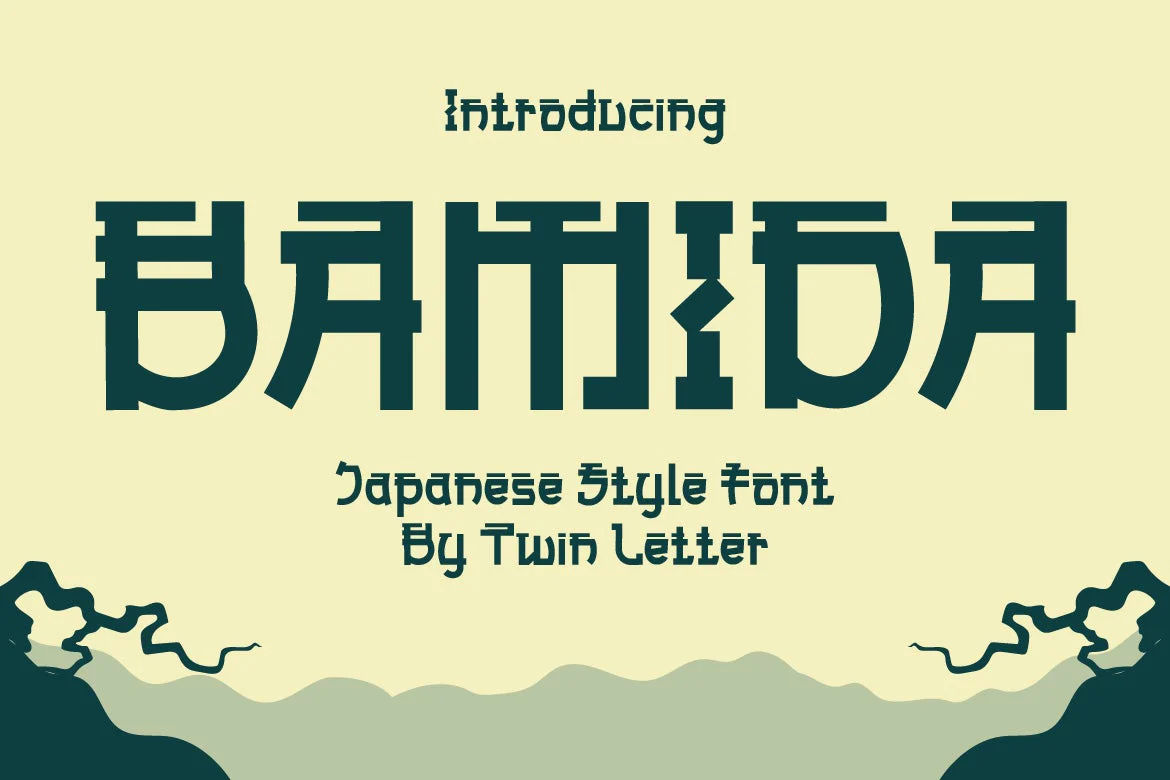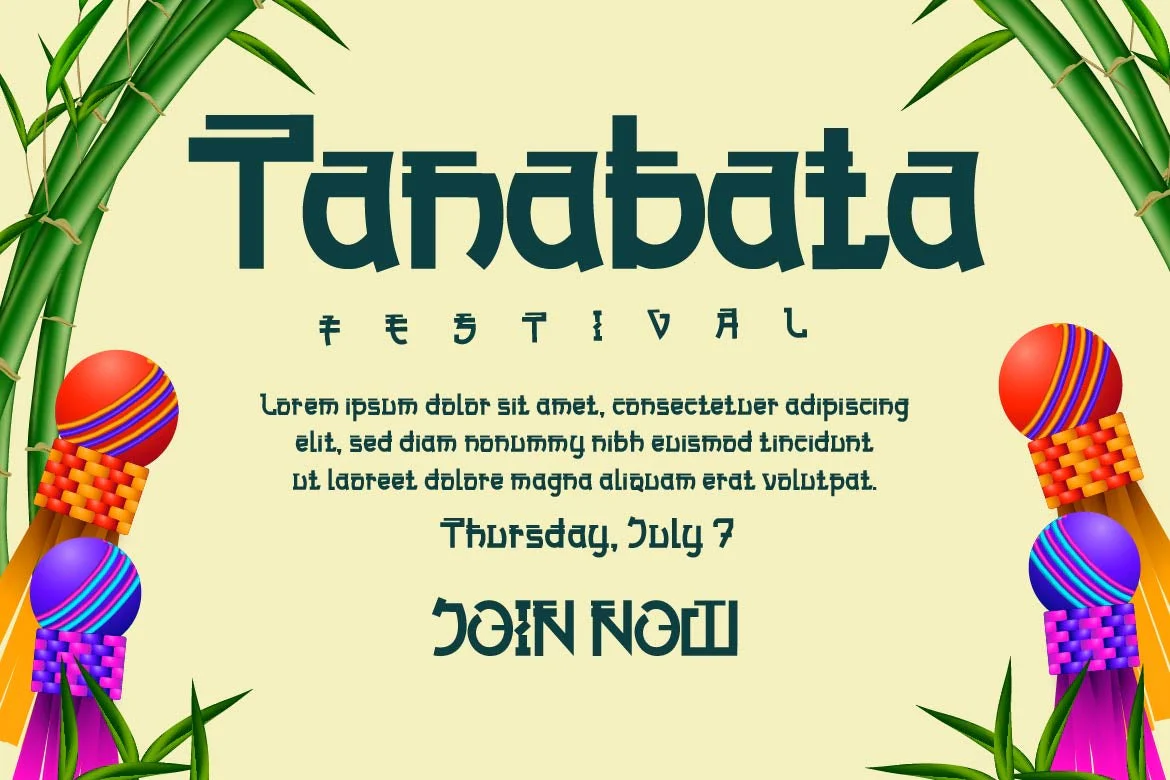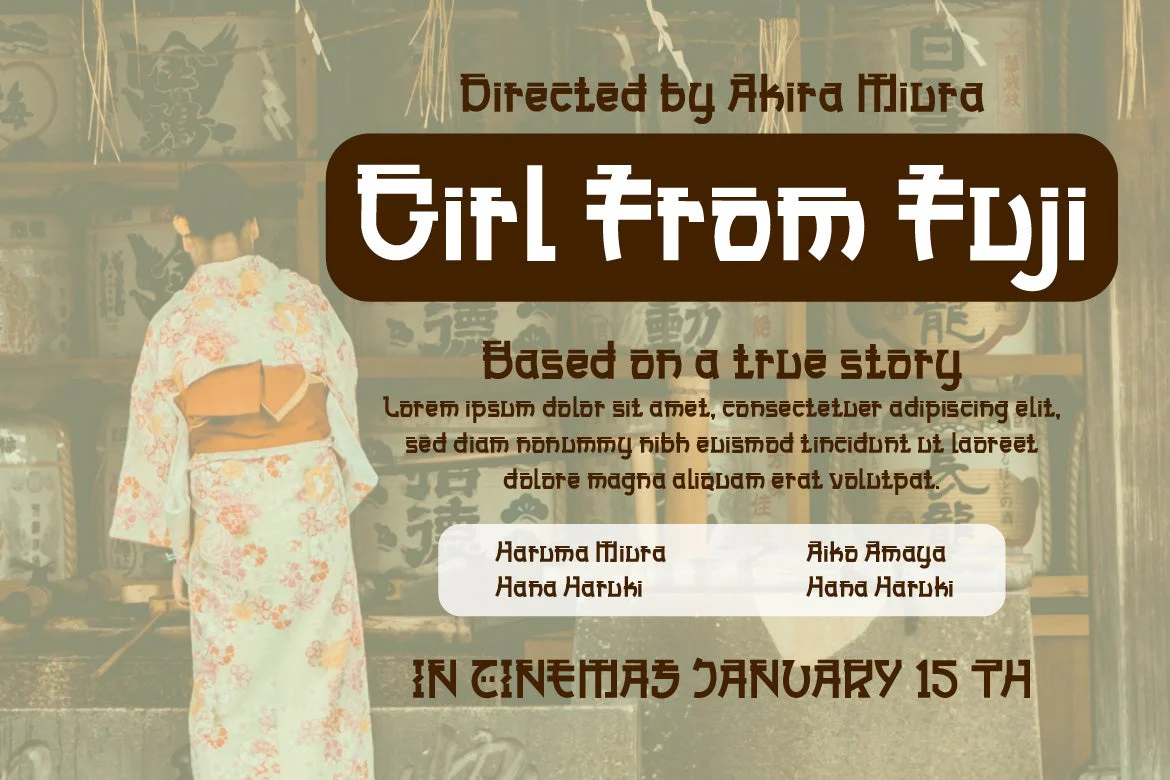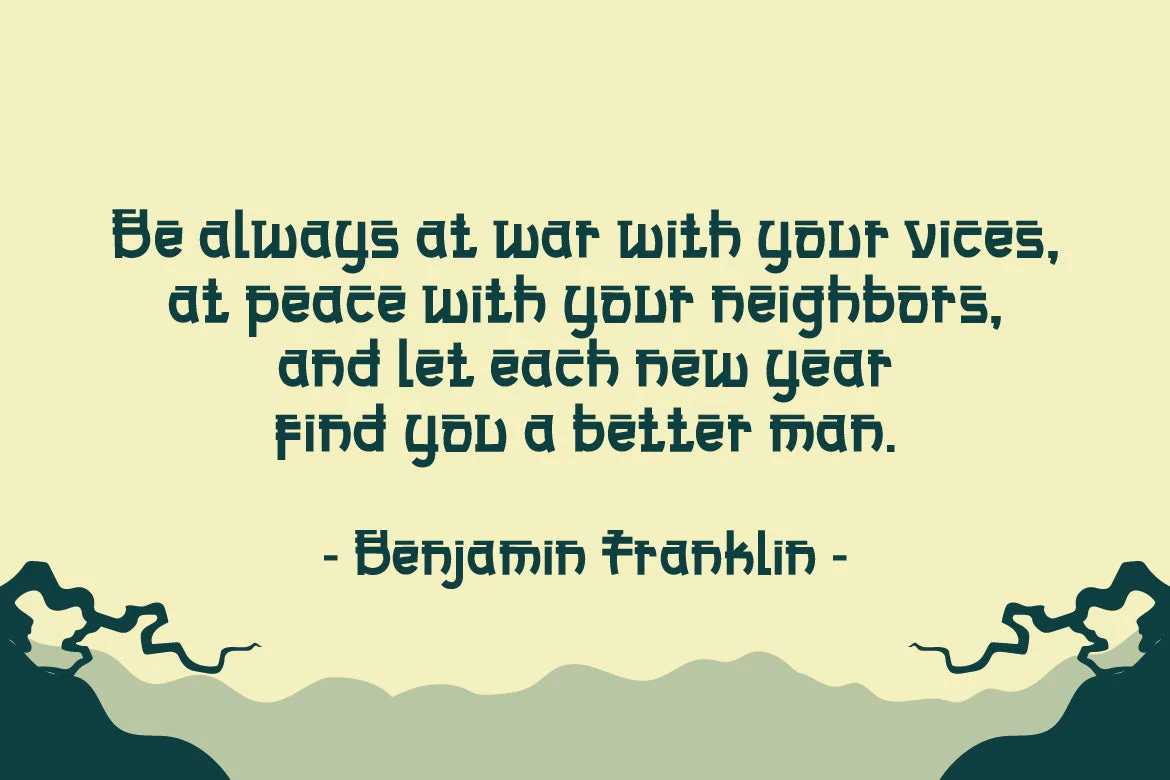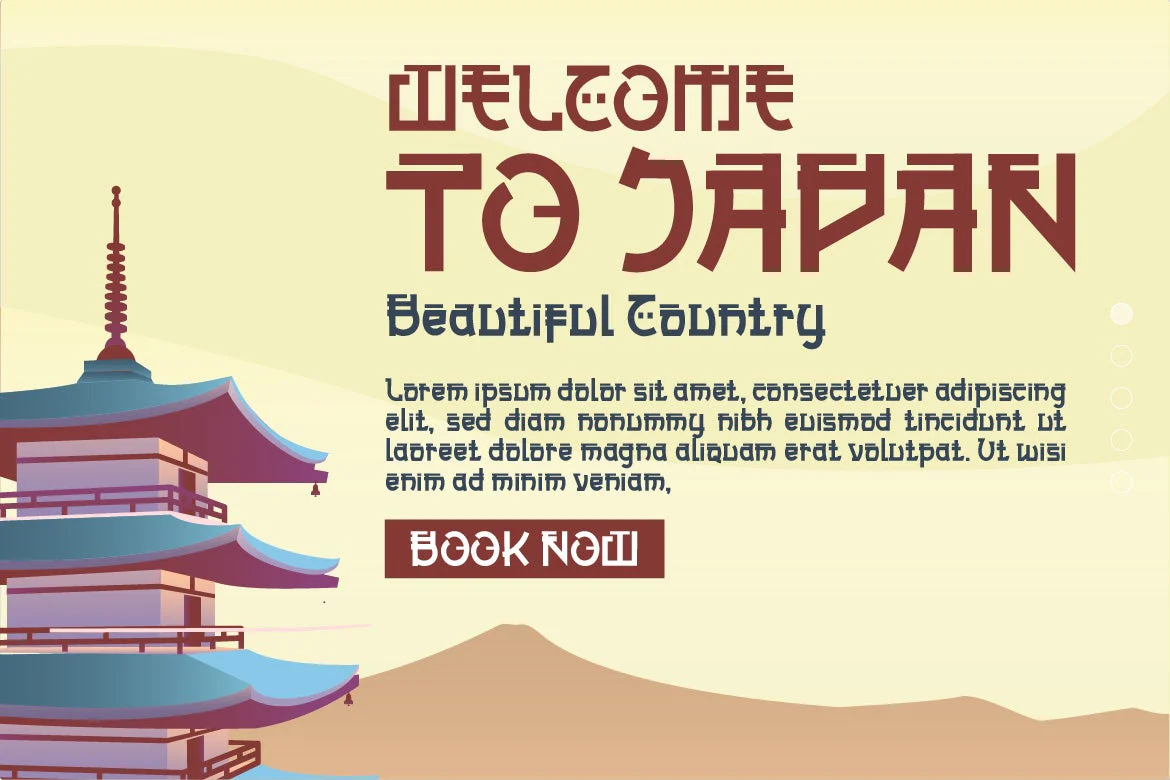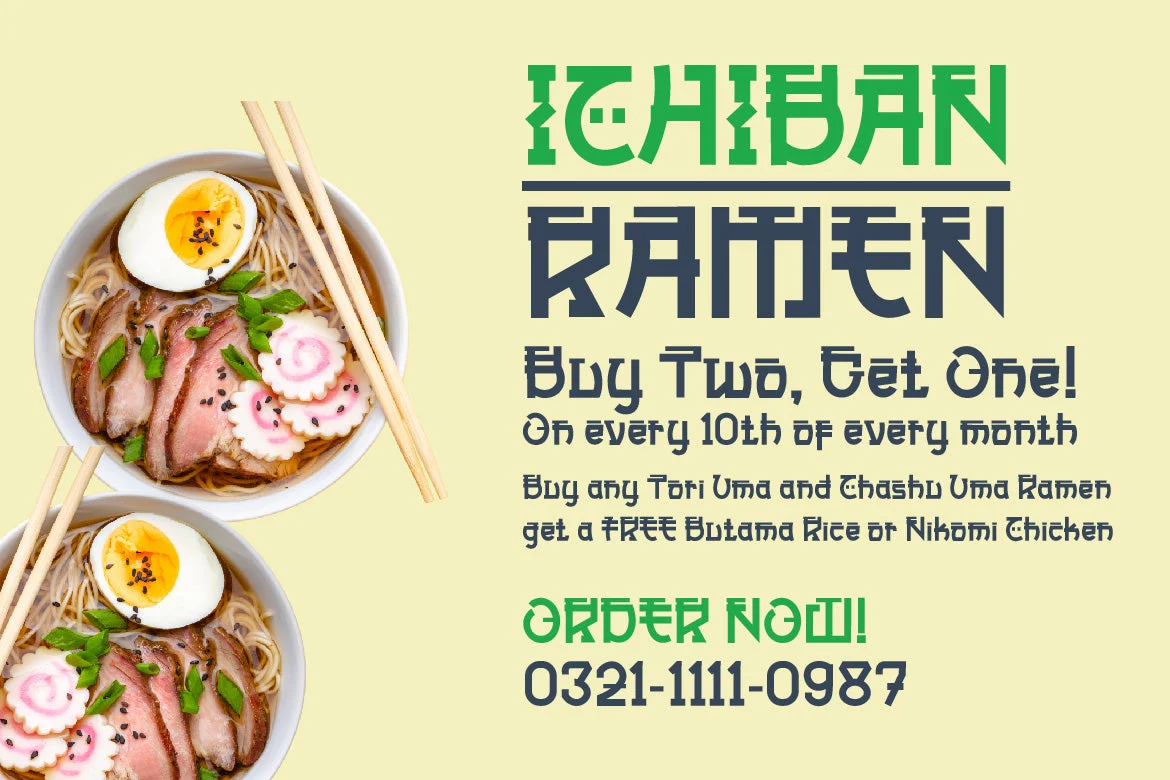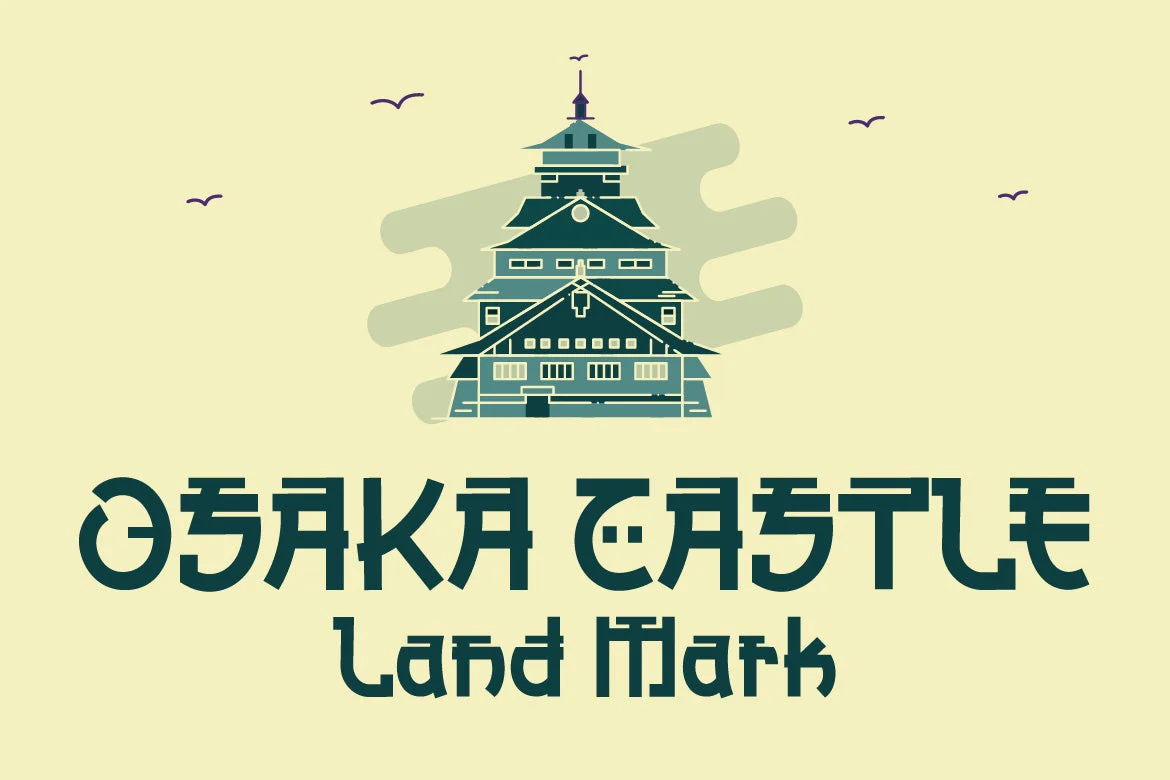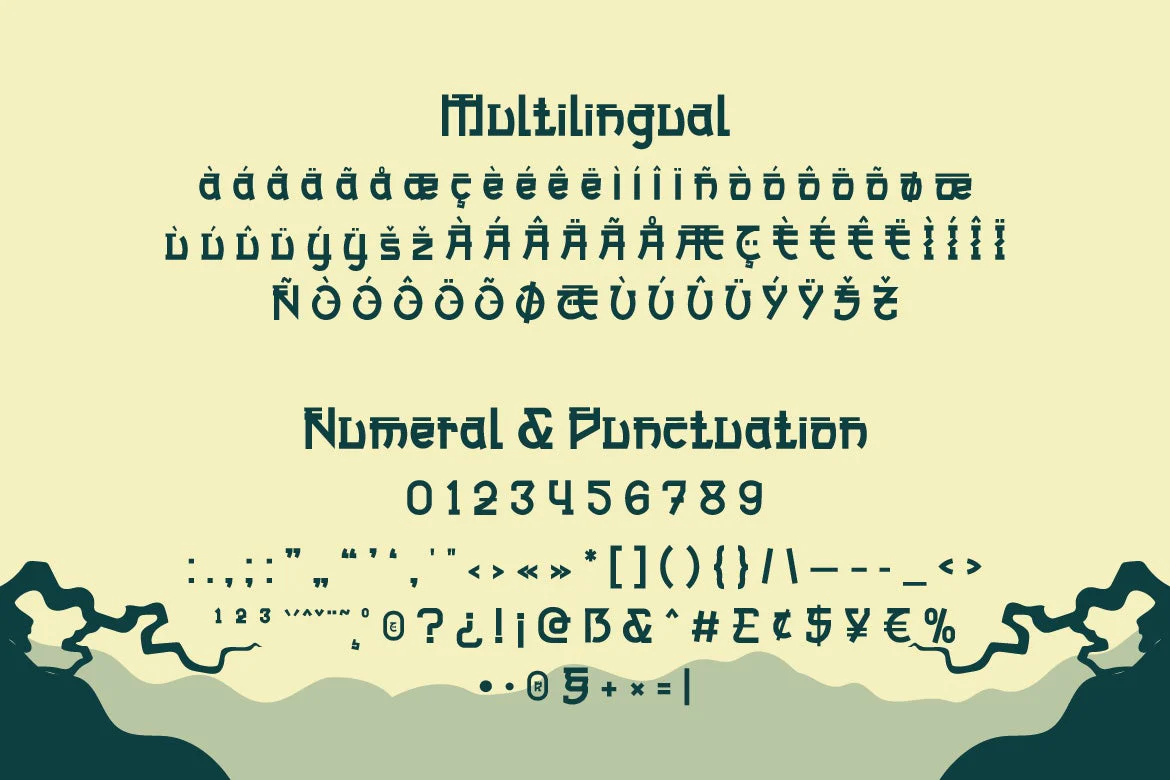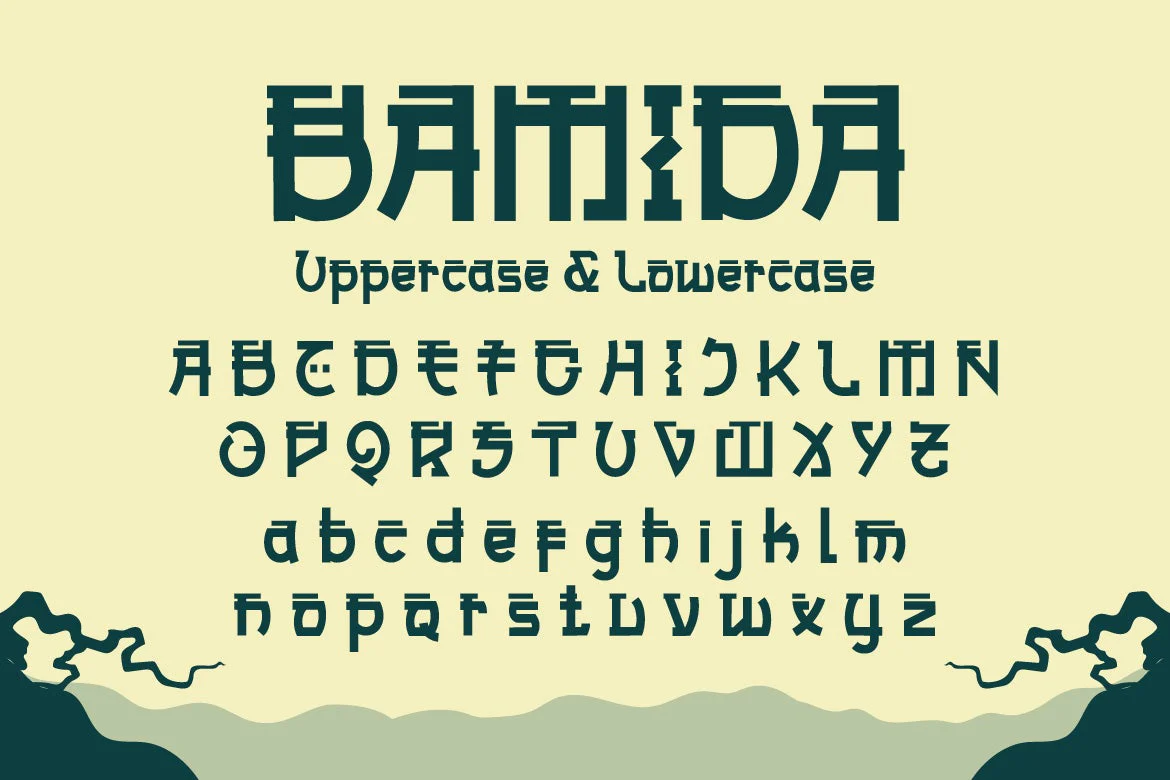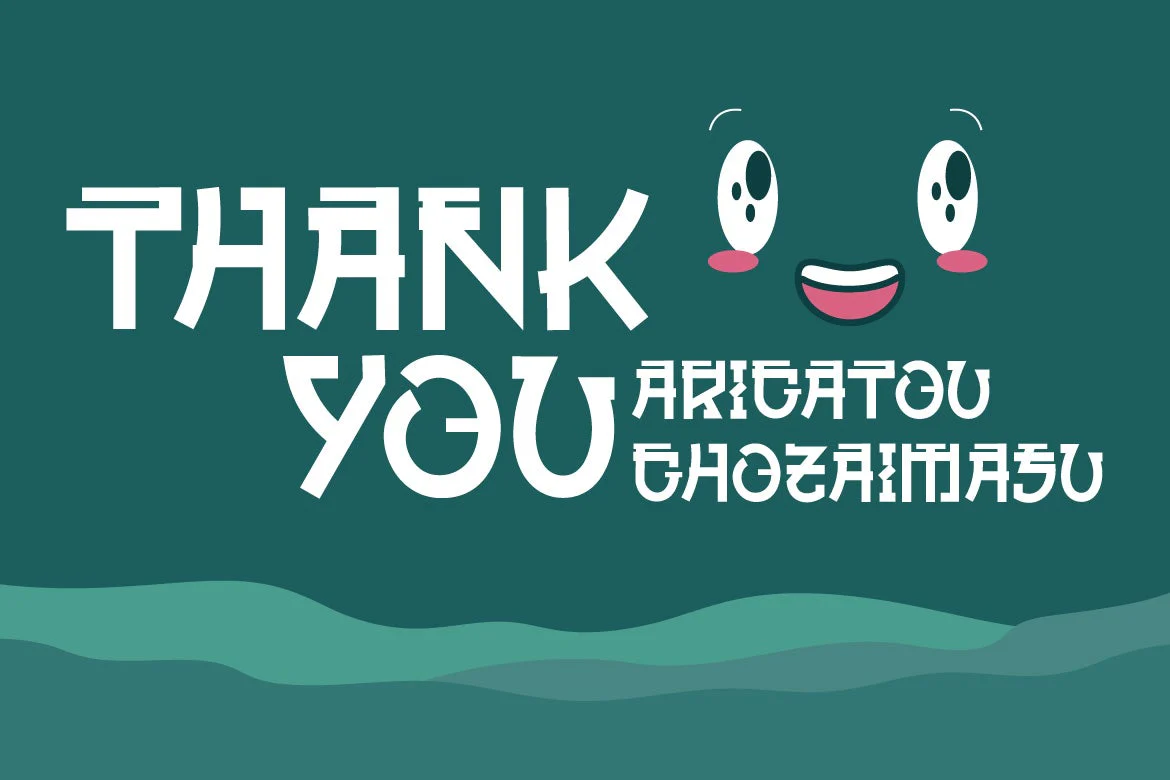
Bamida Faux Japanese Font
BAMIDA is a Japanese-themed display font that uses the most natural fonts to create a stunning, natural, and elegant visual presentation.
If you select this typeface, your project will have a graphic presentation that your audience will enjoy. It will be striking, well-known, and easy to recall.
Logotypes, food banners, branding, brochure, posters, movie titles, book titles, quotes, and more may all benefit from this font.
Of course, using this font in your various design projects will make them excellent and outstanding; many viewers are drawn to the striking and unusual graphic display.
Start utilizing this typeface in your projects to make them stand out.
BAMIDA is a Japanese-themed display font that uses the most natural fonts to create a stunning, natural, and elegant visual presentation.
If you select this typeface, your project will have a graphic presentation that your audience will enjoy. It will be striking, well-known, and easy to recall.
Logotypes, food banners, branding, brochure, posters, movie titles, book titles, quotes, and more may all benefit from this font.
Of course, using this font in your various design projects will make them excellent and outstanding; many viewers are drawn to the striking and unusual graphic display.
Start utilizing this typeface in your projects to make them stand out.